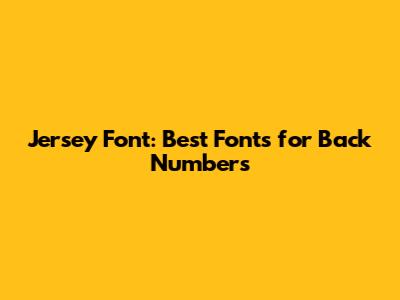
Choosing the right jersey font for back numbers is crucial for team identity and player recognition. The font needs to be legible, durable, and align with the team's brand. With a plethora of options available, selecting the perfect one can be a daunting task. This article provides a comprehensive guide to help you navigate the world of jersey fonts and make the best choice for your team. We will explore various font categories, design considerations, and practical tips to ensure your jersey numbers stand out. Let's dive in and discover how the right font can elevate your team's look!
Why Font Choice Matters for Jersey Numbers
Selecting the right jersey font goes beyond mere aesthetics; it significantly impacts visibility, brand recognition, and overall team identity. Imagine a fast-paced sports game where players need to be identified quickly. A clear, legible font ensures that spectators, referees, and even fellow players can easily recognize the numbers from a distance. This is particularly crucial in sports like football, basketball, and soccer, where split-second decisions depend on accurate player identification. Moreover, the font choice contributes significantly to the team's branding. A unique and well-chosen font can become synonymous with the team, enhancing its marketability and creating a lasting impression. Think of iconic sports teams like the Los Angeles Lakers or the New York Yankees; their jersey fonts are instantly recognizable and evoke a sense of history and tradition. Durability is another key factor. The font must withstand the rigors of the game, including frequent washing, exposure to sunlight, and potential abrasion. Therefore, selecting a font that maintains its integrity over time is essential. The right font not only looks good but also ensures longevity and practicality. In summary, the font choice for jersey numbers is a multifaceted decision that requires careful consideration of visibility, branding, and durability. By investing time and effort into selecting the perfect font, teams can enhance their on-field performance and create a stronger brand identity. So, when designing your team's jerseys, remember that the font is more than just a decorative element; it's an integral part of your team's success.
Key Considerations When Choosing a Jersey Font
When choosing a jersey font, several key factors must be considered to ensure the font meets both aesthetic and functional requirements. First and foremost, legibility is paramount. The numbers on the jersey must be easily readable from a distance, under varying lighting conditions, and even when the player is in motion. Avoid overly stylized or decorative fonts that may compromise clarity. Opt for fonts with clean, simple lines and sufficient spacing between the digits. Size and spacing also play a crucial role in legibility. The numbers should be large enough to be easily seen, but not so large that they overwhelm the jersey design. Proper spacing between the numbers prevents them from appearing cramped or running together. Another vital consideration is the font's compatibility with the jersey material and printing method. Some fonts may not adhere well to certain fabrics or may lose their crispness when printed using specific techniques. It's essential to test the font on the chosen material and printing method to ensure optimal results. Durability is another key aspect to consider. The font should be able to withstand the wear and tear of regular use, including washing, exposure to sunlight, and abrasion. Look for fonts that are designed to be durable and resistant to fading or cracking. Style and branding are also important factors. The font should align with the team's overall brand identity and complement the jersey design. Consider the team's colors, logo, and overall aesthetic when selecting a font. A well-chosen font can enhance the team's image and create a cohesive look. Regulations and guidelines set by sports leagues or governing bodies may also influence the font choice. Some leagues have specific requirements regarding font size, style, and placement. Ensure that the chosen font complies with all applicable regulations to avoid any penalties or issues. By carefully considering these factors – legibility, size, spacing, material compatibility, durability, style, branding, and regulations – you can select a jersey font that not only looks great but also meets all the necessary functional requirements. Remember, the right font can make a significant difference in player identification, team recognition, and overall jersey design.
Popular Font Styles for Jersey Numbers
When it comes to jersey font styles for jersey numbers, several popular options consistently stand out due to their legibility, durability, and aesthetic appeal. One of the most commonly used styles is block fonts. Block fonts are characterized by their clean, simple lines and bold, uniform thickness. They are highly legible and easily recognizable, making them an excellent choice for sports jerseys. Examples of popular block fonts include Arial Black, Impact, and Helvetica Black. These fonts provide a classic, timeless look that works well with a variety of jersey designs. Another popular style is stencil fonts. Stencil fonts feature breaks or gaps in the letters, creating a unique and eye-catching effect. They are often used to give jerseys a more rugged or industrial look. Stencil fonts are particularly well-suited for sports teams with a strong, edgy brand identity. Examples of popular stencil fonts include Stencil, Army, and Impact Stencil. However, it's essential to ensure that the gaps in the letters don't compromise legibility, especially from a distance. Slab serif fonts are another option that can work well for jersey numbers. Slab serif fonts have thick, block-like serifs, which give them a bold and authoritative appearance. They are often used to convey a sense of tradition and strength. Examples of popular slab serif fonts include Rockwell, Courier New, and Memphis. Slab serif fonts can add a touch of sophistication to jersey designs, but it's crucial to choose a font that is not too ornate or distracting. Rounded fonts are also gaining popularity for jersey numbers. Rounded fonts have soft, curved edges, which give them a more modern and friendly look. They are often used to create a more approachable and inclusive team image. Examples of popular rounded fonts include Futura, Bauhaus, and Avant Garde. Rounded fonts can be a great choice for youth sports teams or teams that want to project a more contemporary image. Modern sans-serif fonts offer a sleek and minimalist look. Fonts like Open Sans, Montserrat, and Lato provide excellent legibility and a contemporary feel. These are great for teams aiming for a clean, professional aesthetic. Ultimately, the best font style for jersey numbers depends on the team's brand identity, the overall jersey design, and the specific requirements of the sport. It's essential to experiment with different font styles and sizes to find the perfect combination that maximizes legibility, durability, and aesthetic appeal. Remember to consider the factors discussed earlier, such as material compatibility, printing method, and league regulations, when making your final decision.
Font Pairing Tips for Jersey Design
Effective jersey font pairing is essential for creating a visually appealing and cohesive design. Combining different fonts can add depth and interest to the jersey, but it's crucial to do it right to avoid a cluttered or confusing look. One of the fundamental principles of font pairing is to choose fonts that complement each other. Avoid selecting fonts that are too similar, as this can create a monotonous and uninspired design. Instead, look for fonts with contrasting styles but harmonious qualities. For example, pairing a bold block font with a clean sans-serif font can create a balanced and visually appealing contrast. When pairing fonts, consider the hierarchy of information. The primary font, typically used for the team name or logo, should be the most prominent and eye-catching. The secondary font, used for the jersey numbers, should be legible and complement the primary font without overshadowing it. Avoid using more than two or three fonts on a jersey, as this can create a cluttered and overwhelming design. Stick to a limited palette of fonts to maintain a sense of consistency and coherence. Another tip for font pairing is to consider the overall style of the jersey. If the jersey has a classic or traditional design, opt for fonts that reflect that style. For example, pairing a slab serif font with a classic block font can create a timeless and sophisticated look. On the other hand, if the jersey has a modern or contemporary design, choose fonts that align with that aesthetic. Pairing a clean sans-serif font with a rounded font can create a sleek and modern appearance. Experiment with different font combinations to find the perfect balance between style and legibility. Use online font pairing tools and resources to explore different font combinations and get inspiration. These tools can help you visualize how different fonts look together and identify potential pairings that you may not have considered. Pay attention to the spacing and kerning between the letters and numbers. Proper spacing is essential for legibility and visual appeal. Adjust the kerning to ensure that the letters and numbers are evenly spaced and that there are no awkward gaps or overlaps. Finally, test the font pairing on a mock-up of the jersey to see how it looks in context. Print out a sample of the jersey with the chosen fonts and evaluate it from a distance. This will help you identify any potential issues with legibility or visual appeal. By following these font pairing tips, you can create a jersey design that is both visually appealing and highly functional. Remember, the goal is to choose fonts that complement each other, enhance the team's brand identity, and ensure that the jersey numbers are easily readable from a distance.
Where to Find High-Quality Jersey Fonts
Finding high-quality jersey font can significantly enhance the overall look and feel of your team's jerseys. Numerous resources are available, both online and offline, offering a wide variety of fonts suitable for sports apparel. One of the most popular options is to explore online font foundries and marketplaces. Websites like Adobe Fonts, MyFonts, and Fontspring offer a vast selection of fonts, ranging from classic block fonts to modern sans-serif designs. These platforms typically provide high-resolution font files that can be easily integrated into your design software. They also offer licensing options that allow you to use the fonts for commercial purposes. When searching for jersey fonts on these platforms, use specific keywords such as "sports fonts," "athletic fonts," or "jersey numbers" to narrow down your search results. Pay attention to the font's legibility, durability, and compatibility with different printing methods. Another great resource for finding high-quality jersey fonts is graphic design websites and communities. Websites like Behance and Dribbble showcase the work of talented designers from around the world. You can often find unique and custom-designed fonts that are specifically created for sports jerseys. These fonts may be available for purchase or download, or you may be able to commission a designer to create a custom font for your team. Social media platforms like Instagram and Pinterest can also be valuable sources of inspiration and font discovery. Search for hashtags such as #sportsfonts, #jerseyfonts, or #athleticdesign to find examples of jerseys featuring different font styles. You can also follow graphic designers and sports apparel companies to stay up-to-date on the latest font trends. In addition to online resources, consider exploring offline options such as local print shops and design studios. These businesses often have a library of fonts that you can browse, and they can provide expert advice on selecting the best font for your needs. They can also help you with the printing process and ensure that the font is applied correctly to the jerseys. Before purchasing or using any font, be sure to check the licensing terms and conditions. Some fonts may be free for personal use but require a commercial license for use on products that are sold for profit. Respecting the intellectual property rights of font designers is essential. Finally, don't be afraid to experiment with different fonts and combinations to find the perfect fit for your team's brand identity. Try out different fonts on mock-ups of your jerseys and get feedback from players, coaches, and fans. The right font can make a significant difference in the overall look and feel of your team's jerseys, so it's worth taking the time to find the perfect one.
Maintaining Jersey Font Quality Over Time
Maintaining the quality of jersey font over time is crucial to ensure that the team's identity remains consistent and professional. Several factors can affect the appearance of jersey fonts, including washing, wear and tear, and exposure to sunlight. By taking proactive steps, you can prolong the life of your jersey fonts and keep them looking their best. Proper washing techniques are essential for maintaining jersey font quality. Always follow the manufacturer's instructions when washing jerseys, and avoid using harsh detergents or bleach, as these can damage the font and cause it to fade or crack. Turn the jerseys inside out before washing to protect the font from abrasion. Consider using a gentle cycle and cold water to minimize wear and tear. Air drying is preferable to machine drying, as high heat can cause the font to shrink or distort. If you must use a dryer, use a low heat setting and remove the jerseys promptly once they are dry. Proper storage is also crucial for maintaining jersey font quality. Avoid storing jerseys in direct sunlight or in damp environments, as these can cause the font to fade or mildew. Store jerseys in a cool, dry place, preferably in a garment bag or on a hanger. If you need to iron a jersey, use a low heat setting and place a cloth between the iron and the font to protect it from direct heat. Avoid ironing directly over the font, as this can cause it to melt or distort. Regular inspection of the jerseys can help you identify potential issues before they become major problems. Check for signs of fading, cracking, or peeling, and address these issues promptly. Minor repairs, such as re-stitching loose threads or applying fabric glue to peeling edges, can help extend the life of the font. Consider using a professional jersey repair service for more significant damage. These services have the expertise and equipment to repair or replace damaged jersey fonts, ensuring that your team's jerseys look their best. Educating players and staff about proper jersey care can also help maintain font quality. Provide guidelines on how to wash, store, and handle jerseys to minimize wear and tear. By promoting a culture of respect for the team's uniforms, you can ensure that everyone takes pride in maintaining the appearance of the jerseys. Finally, consider using high-quality fonts and printing methods when designing your jerseys. Investing in durable fonts and professional printing techniques can help ensure that the font will withstand the rigors of regular use and washing. By following these tips, you can maintain the quality of your jersey fonts over time and ensure that your team's jerseys continue to look professional and represent your brand effectively. Remember, the jerseys are a reflection of your team's identity, so it's worth taking the time to care for them properly.
Choosing the right font for your jersey numbers is a vital part of creating a cohesive and professional team image. By considering legibility, style, durability, and regulations, you can select a font that not only looks great but also enhances player identification and team recognition. Explore different font styles, experiment with font pairings, and don't hesitate to seek inspiration from other teams and designs. With careful consideration and attention to detail, you can create jerseys that make your team stand out on and off the field. Remember that a well-chosen font is an investment in your team's brand and identity. So, take your time, do your research, and select a font that reflects your team's values and aspirations.